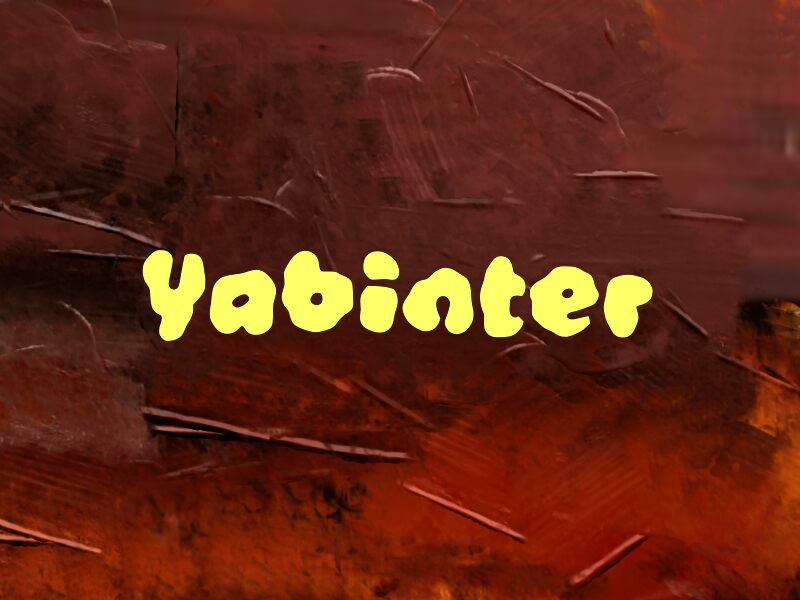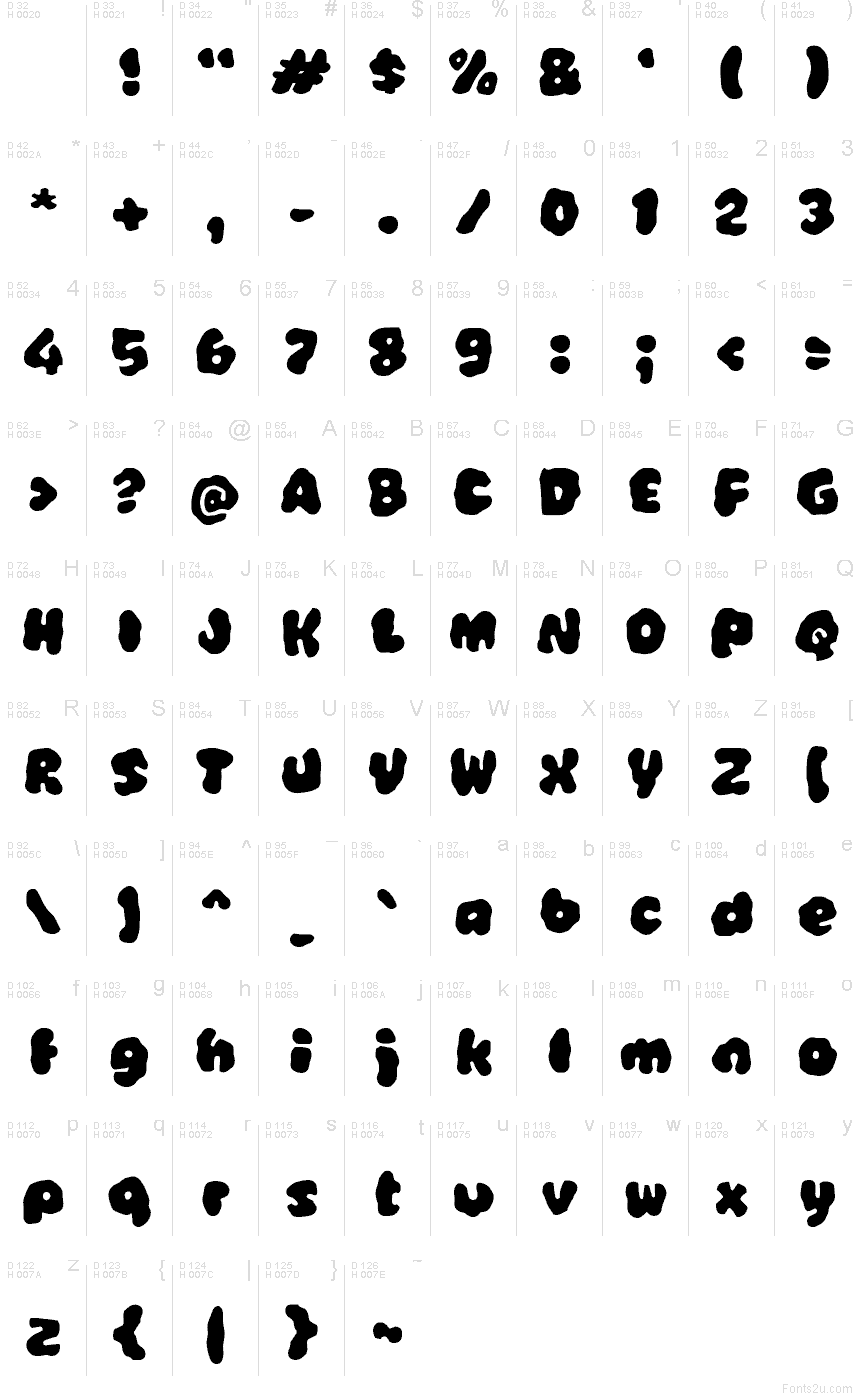
Yabinter
Yabinter font by wepfont.com is a free groovy display typeface that looks like it’s been poured onto the page in thick, inky blobs. The letters swell and wobble with a hand-formed, almost liquid feel, creating a bold, psychedelic rhythm that grabs attention instantly. Soft curves and uneven contours give it a playful, underground vibe that feels both retro and freshly weird.
Using Yabinter, bold titles feel loud, squishy, and fun—great for posters, album covers, festival branding, stickers, streetwear graphics, and YouTube thumbnails. This free font works best when you let it go big and chunky, then support it with a clean, light-weight sans serif for smaller copy or taglines to keep everything readable and balanced.